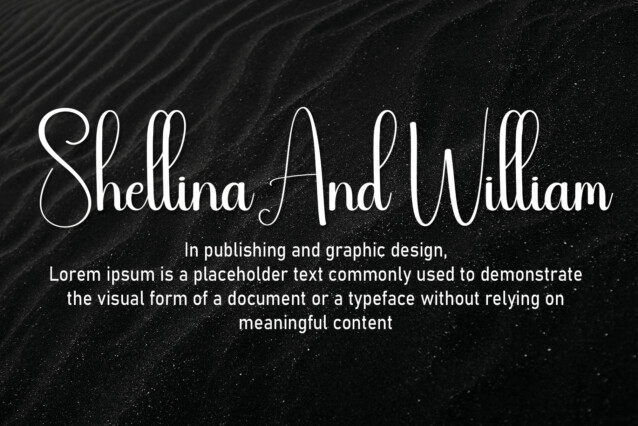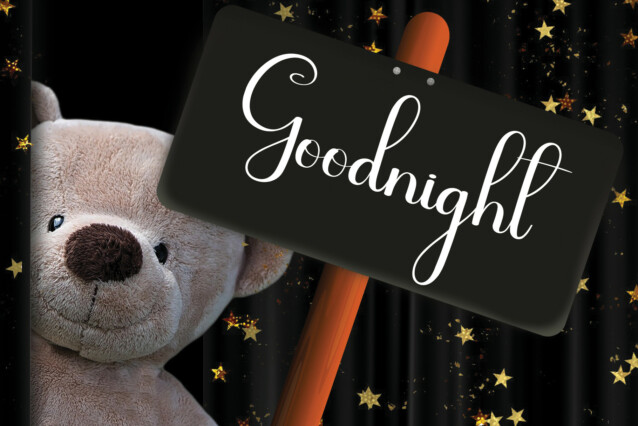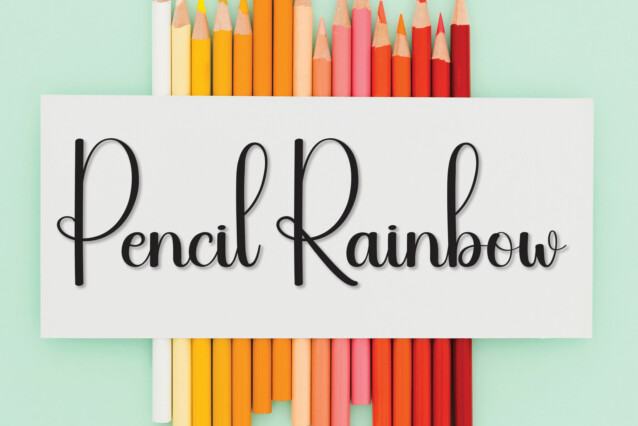
Dazzling Script Font
Dazzling Script Font is a high-quality handwritten font with tall and thin lettering. It’s perfectly suitable for wedding invitations, wall displays, labels, product packaging, product designs, photography, watermarks, invitations, stationery, and any project that requires taste handwriting.